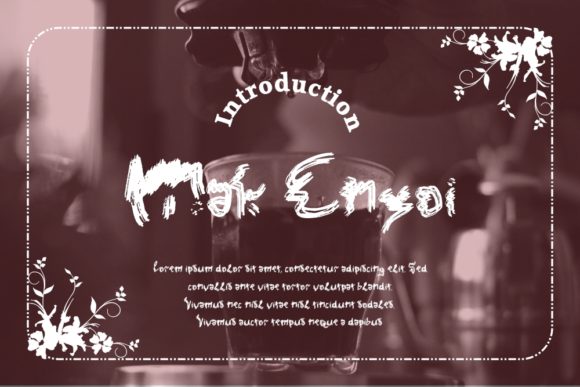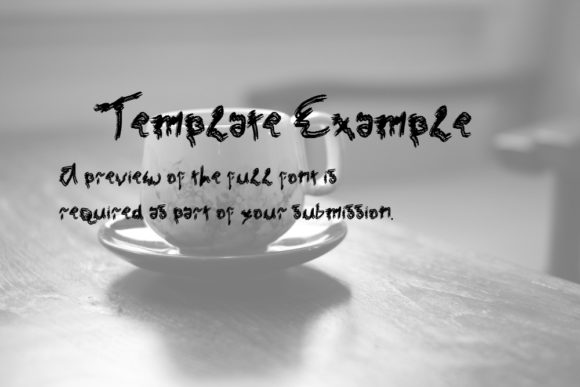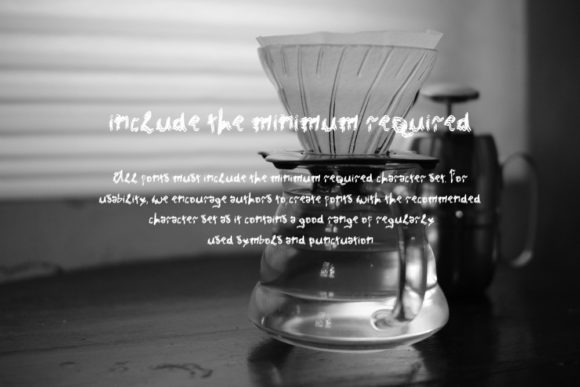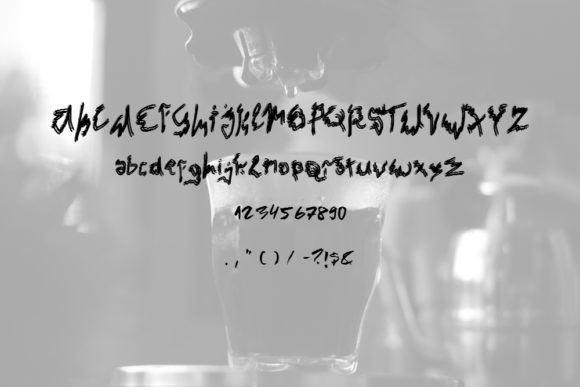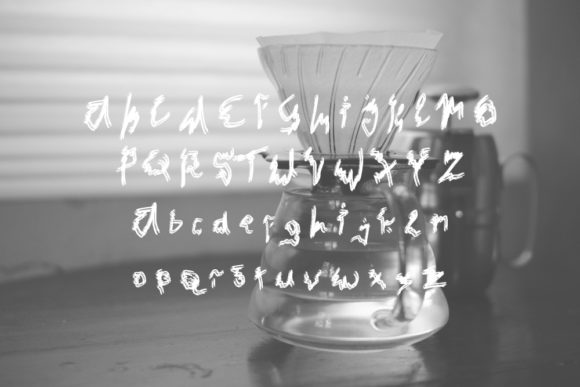
Mak Enyoi Font
About Mak Enyoi Font
Mak Enyoi sounds like a fantastic and distinct dingbats font that can bring a quirky and unique touch to your designs. With its versatile style, this font offers a range of creative possibilities. Here are some ways you can use Mak Enyoi to enhance your designs:
1. Logo Design: Create a memorable and eye-catching logo using Mak Enyoi. The font’s distinct and quirky style can help your brand stand out and convey a sense of fun and creativity. Play with different letter combinations or incorporate the dingbats as part of your logo design for a unique and playful look.
2. Posters and Flyers: Make your posters and flyers more engaging with Mak Enyoi. The font’s unique and quirky style can add a sense of whimsy and personality to your designs. Use the dingbats as decorative elements or incorporate them into the overall composition to create visually captivating posters and flyers.
3. Packaging Design: If you’re working on packaging design, Mak Enyoi can bring a distinct and playful touch. Whether it’s for food products, cosmetics, or any other consumer goods, the font’s quirky style can make your packaging stand out on the shelves and attract attention.
4. Social Media Graphics: Use Mak Enyoi to add a dose of personality to your social media graphics. Whether you’re creating posts, stories, or banners, the font’s distinct and unique style can help your content stand out in crowded feeds. Play with different sizes, colors, and combinations to create visually appealing graphics.
5. Apparel Design: Incorporate Mak Enyoi into your apparel design to add a touch of quirkiness and uniqueness. Whether you’re creating t-shirt designs, patches, or embroidery, the font’s distinct style can bring a playful and artistic element to your apparel.
6. Web Design: If you’re looking to create a website with a unique and memorable look, Mak Enyoi can be a great choice. Use the font for headings, titles, or as part of your navigation menu to add a touch of personality and capture the attention of your visitors.
Remember to explore different ways to use Mak Enyoi and let its distinct and quirky style inspire your creativity. Whether you’re designing logos, posters, social media graphics, packaging, apparel, or websites, this font can add a unique and playful touch to your projects.